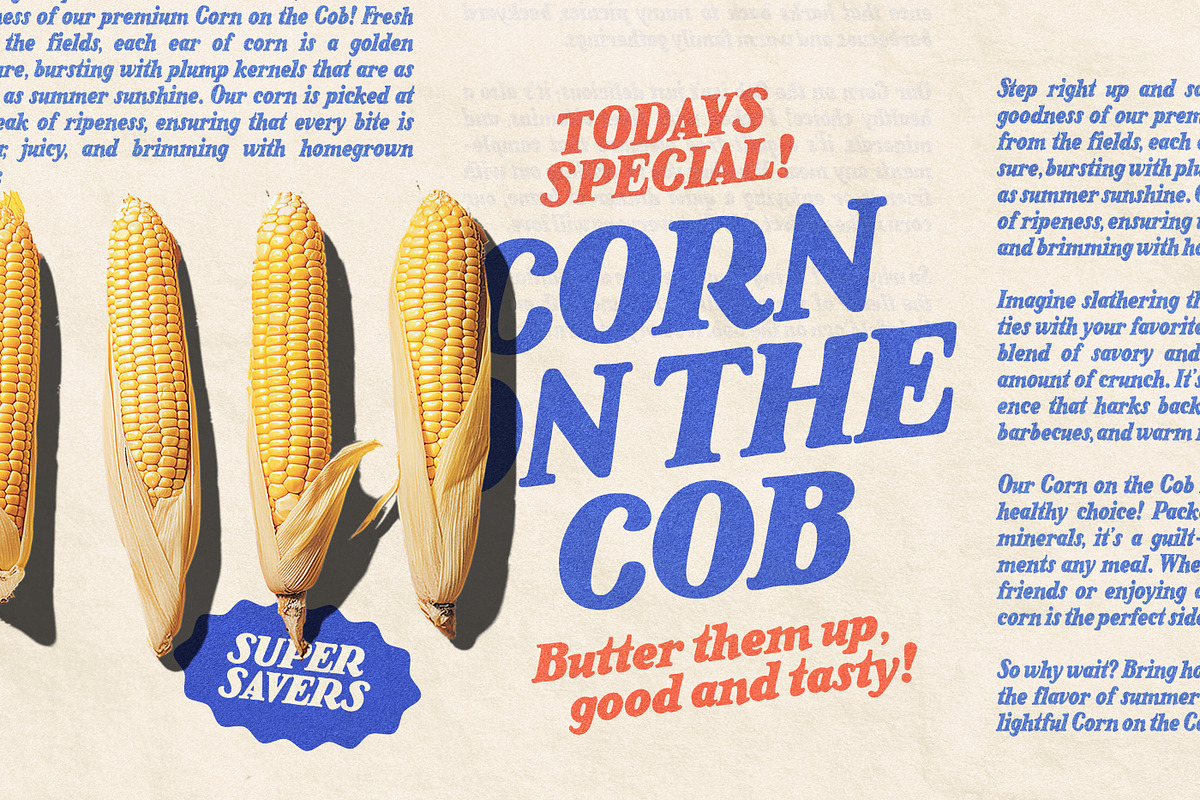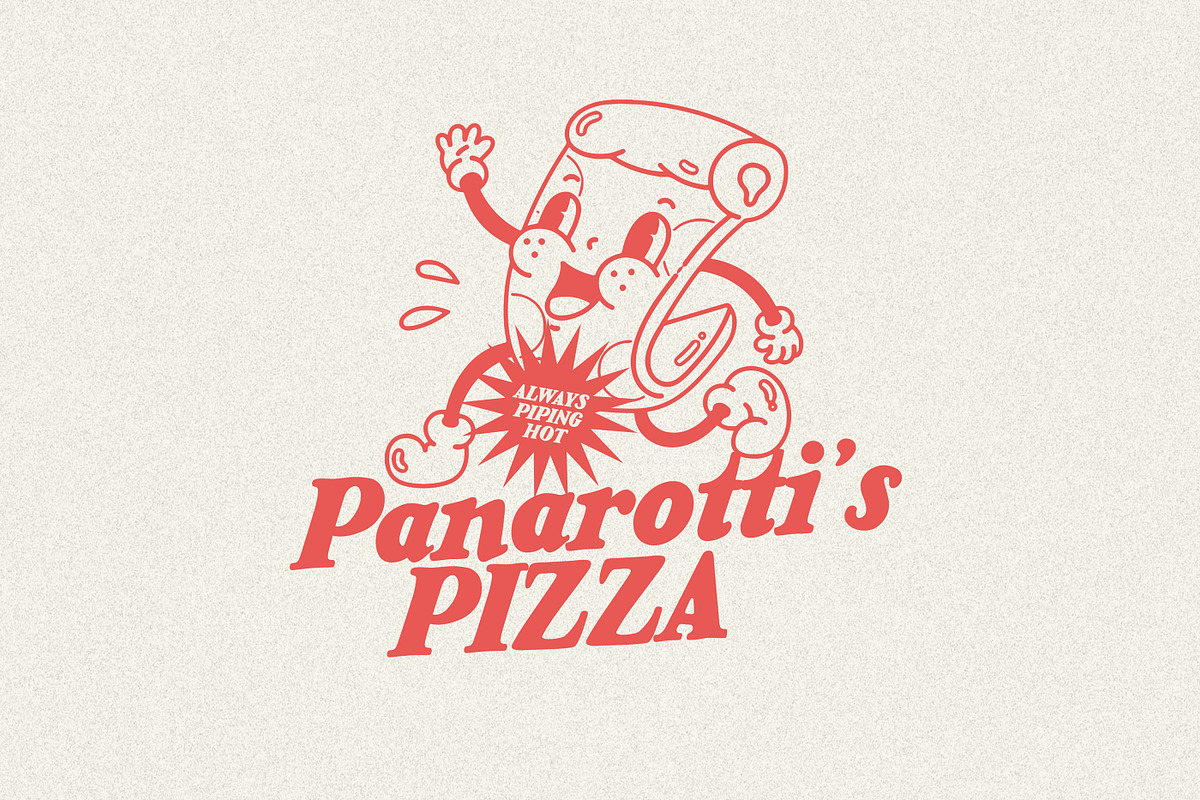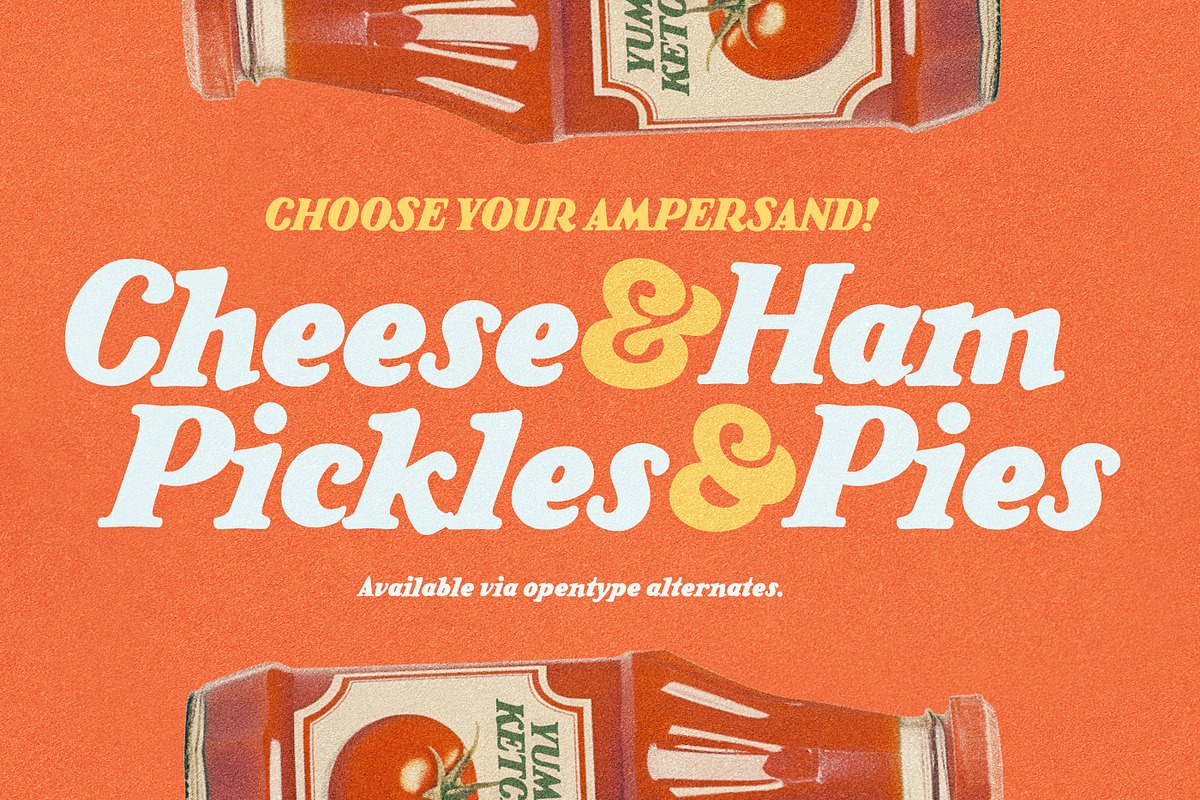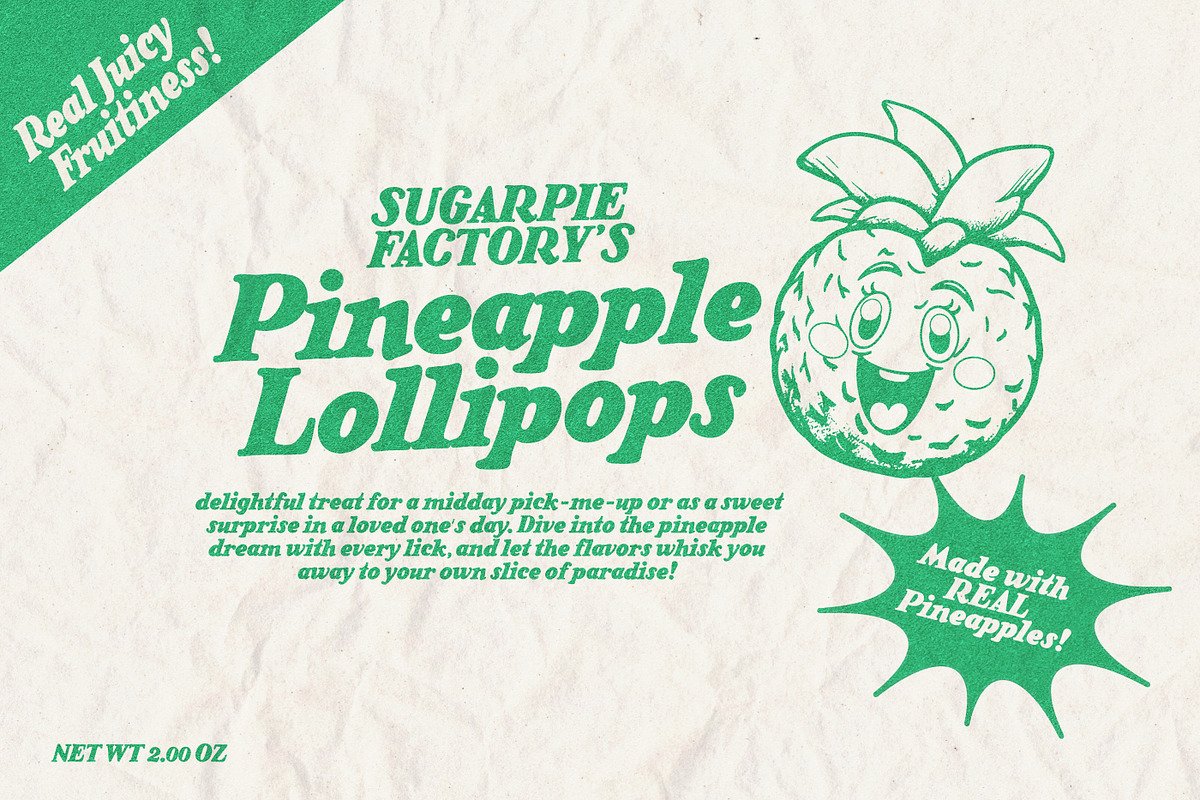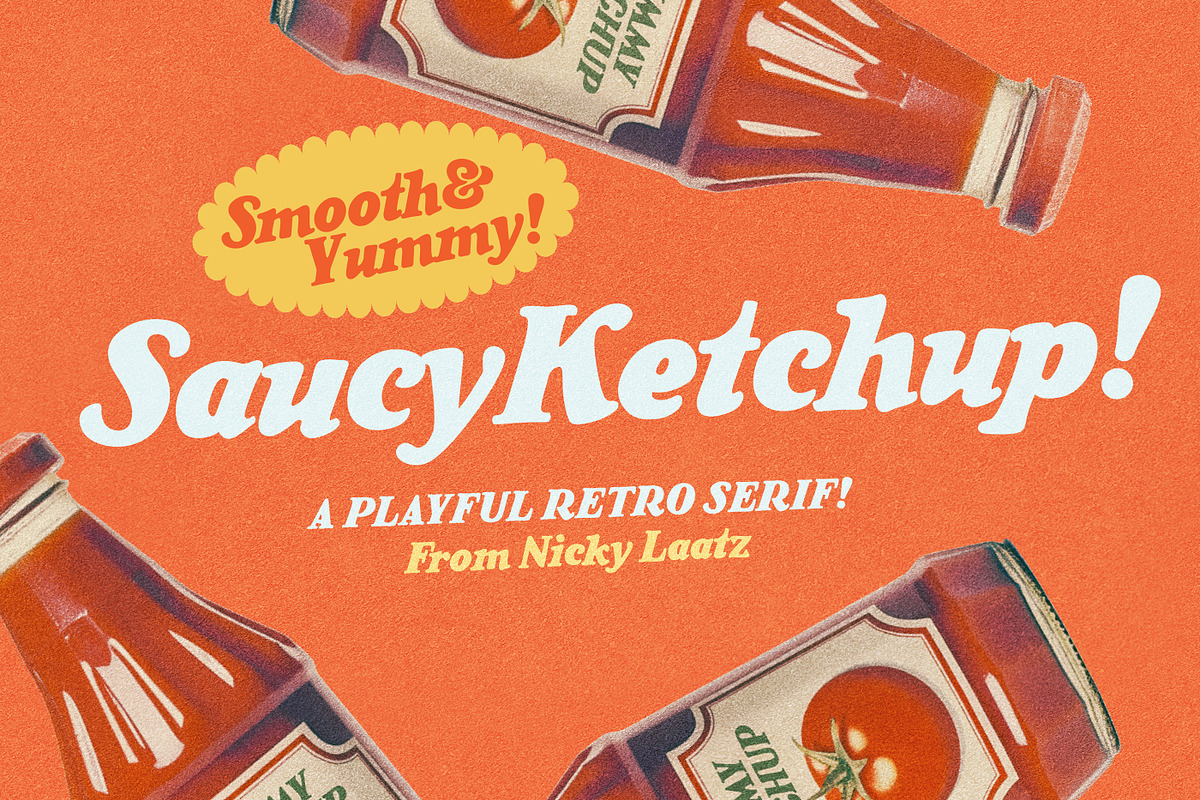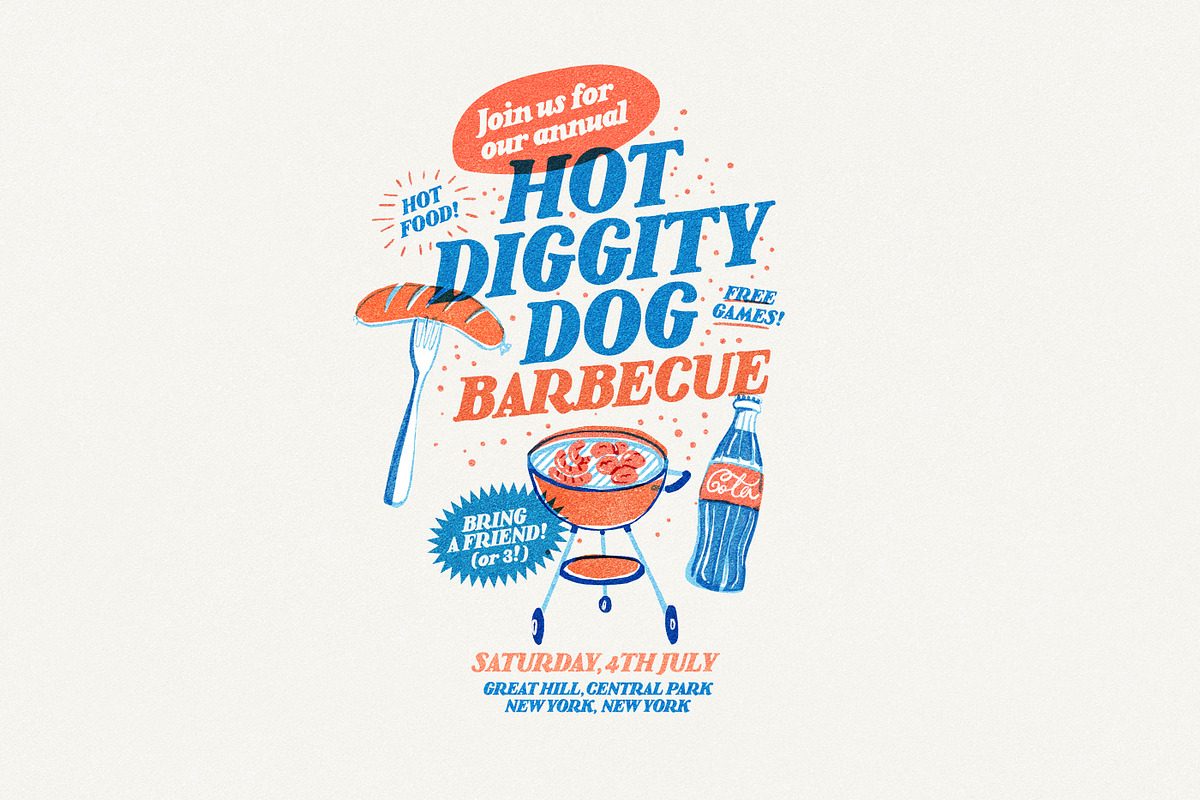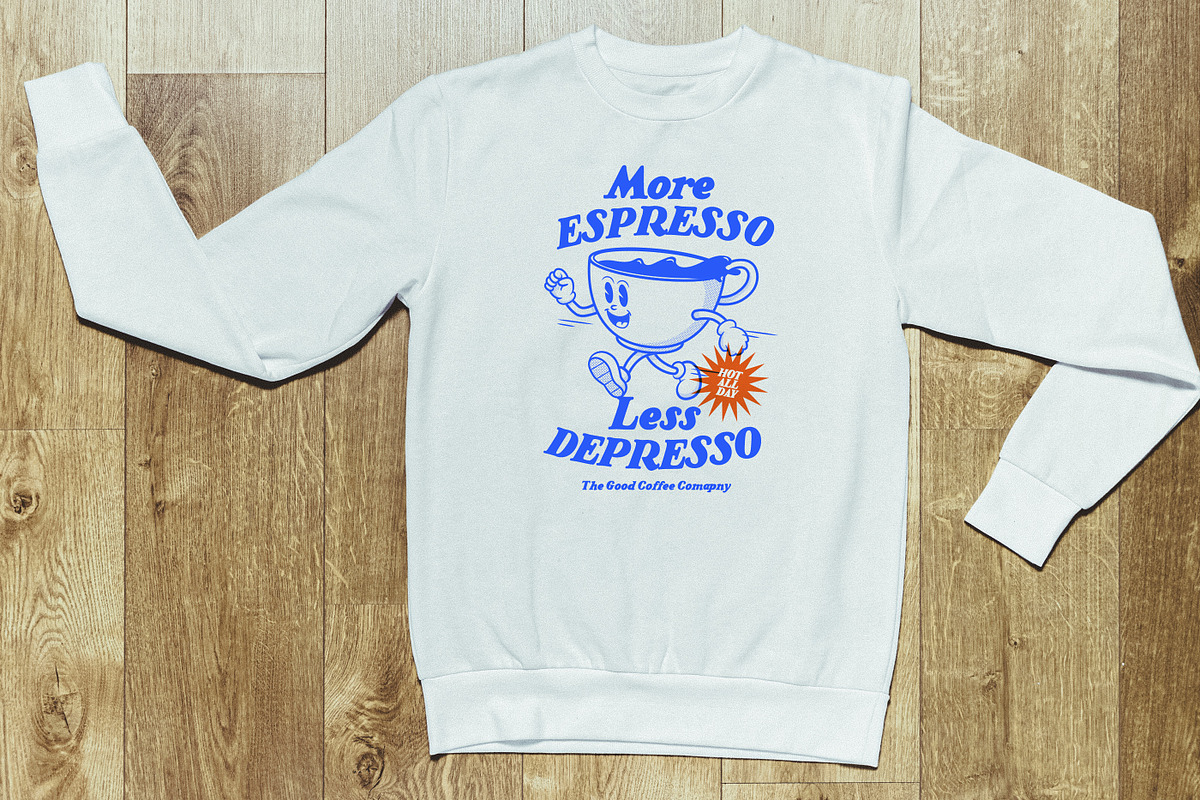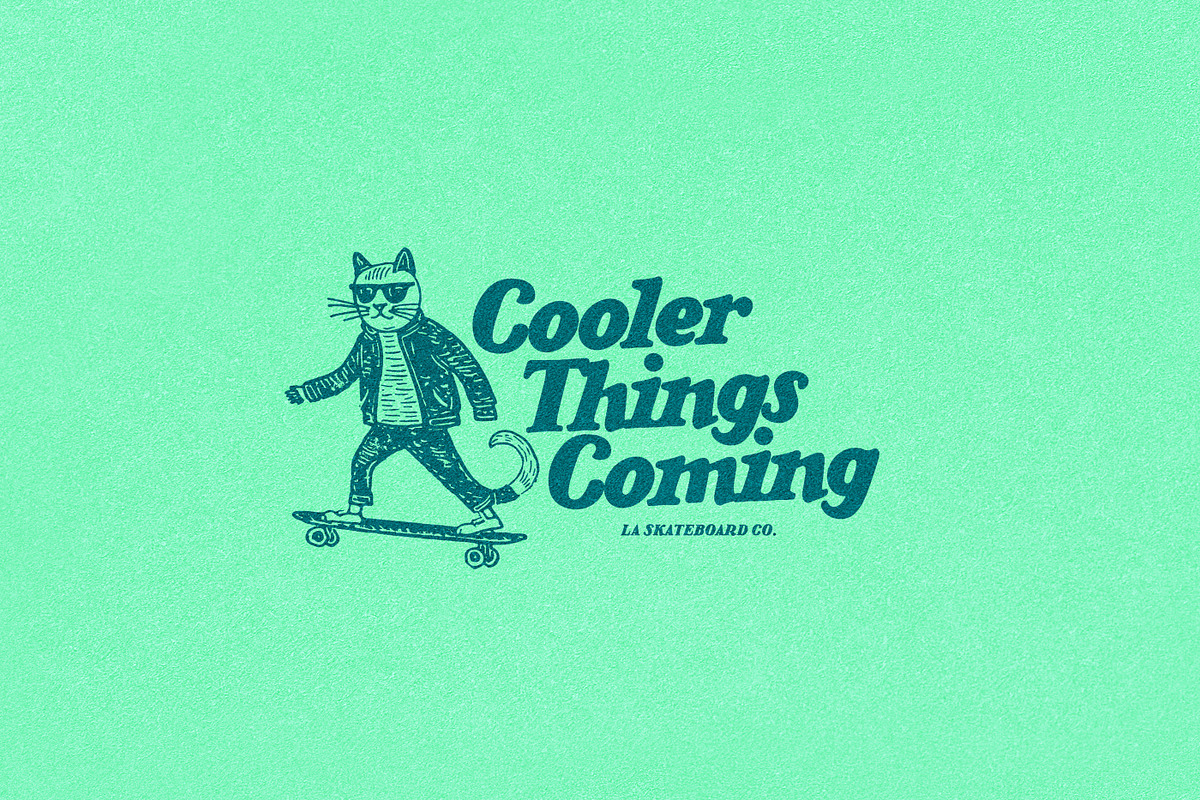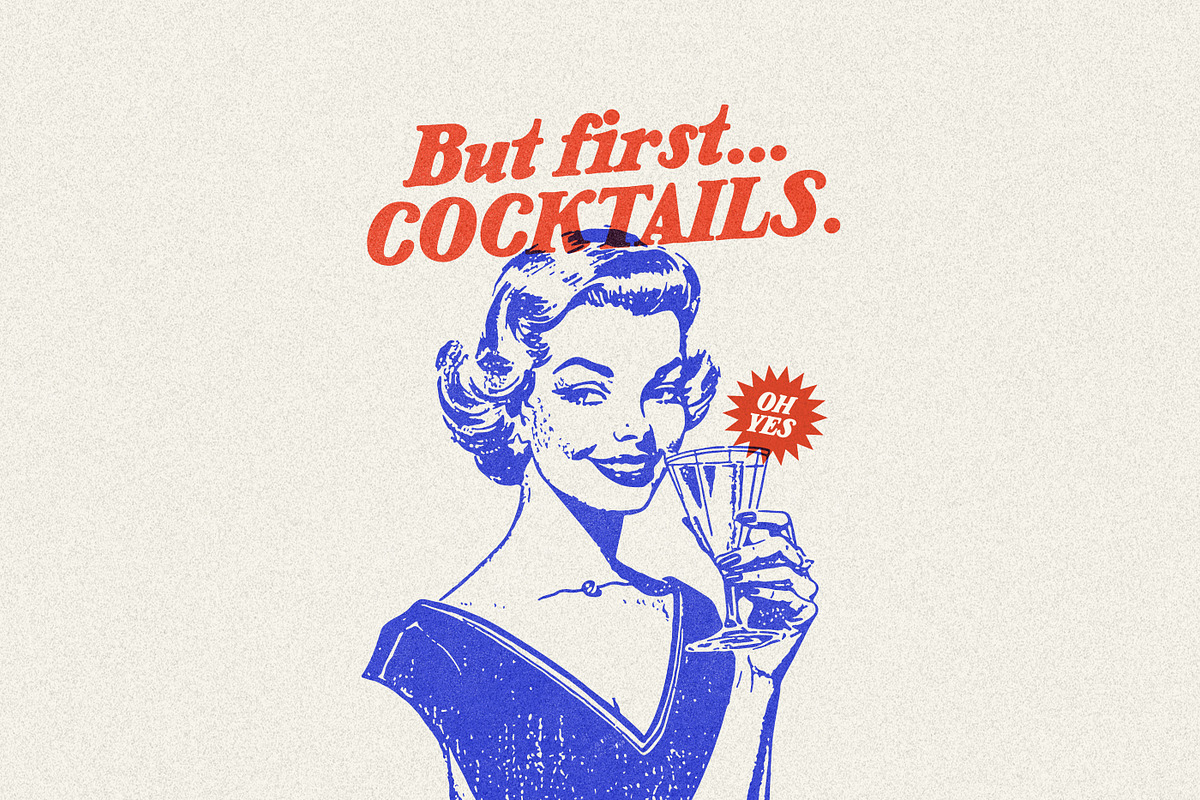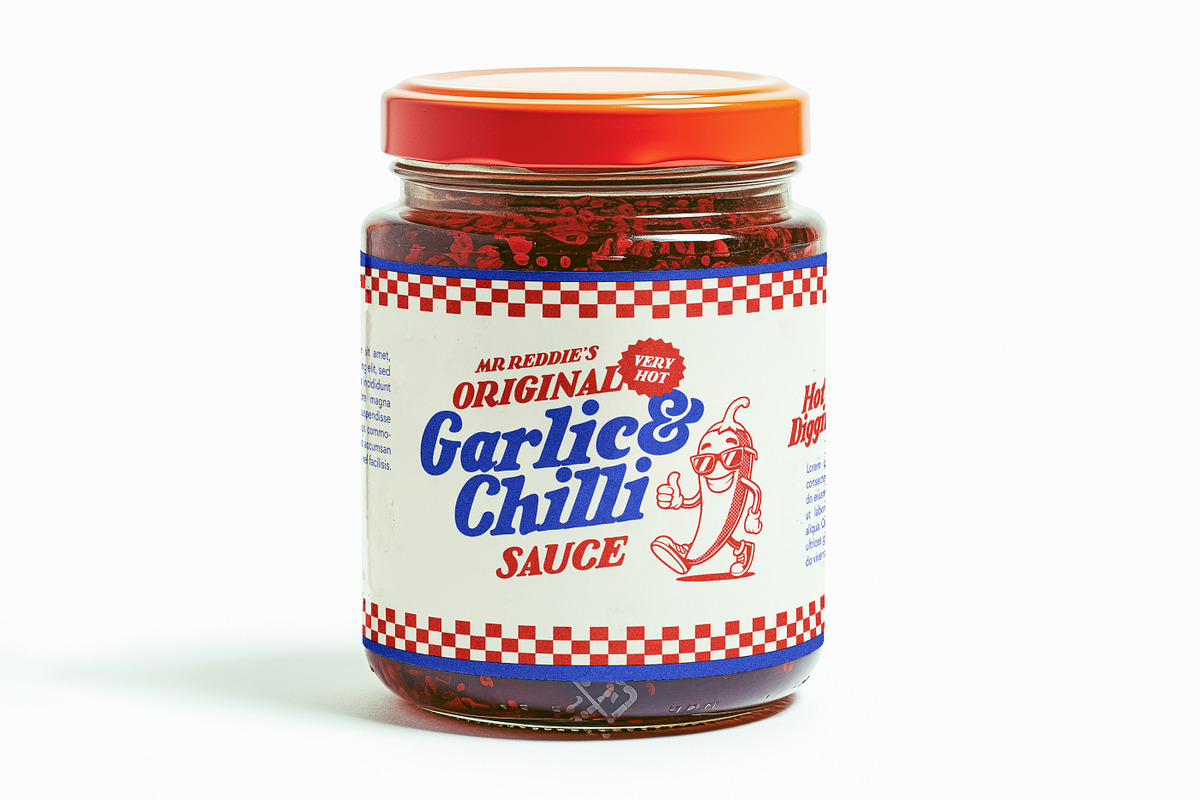
Saucy Ketchup! A Retro Serif
A Retro Serif inspired by hand painted advertising of the 40s and 50s! Unleash the bold flavours of design with "Saucy Ketchup" typeface! Perfect for the brand that wants to add a dash of fun and a pinch of quirk to their messaging, this font is as versatile as it is vivacious.
With its playful curves and zesty edges, it captures the essence of a classic diner experience. Whether you're spicing up your menu, crafting a catchy headline, or stirring up some retro branding, this typeface supports a wide array of languages including Danish, English, French, German, and more.
It's time to pour on the personality and let your words sizzle with the "Smooth & Yummy!" spirit of Saucy Ketchup:)
Also included is a narrower condensed version!